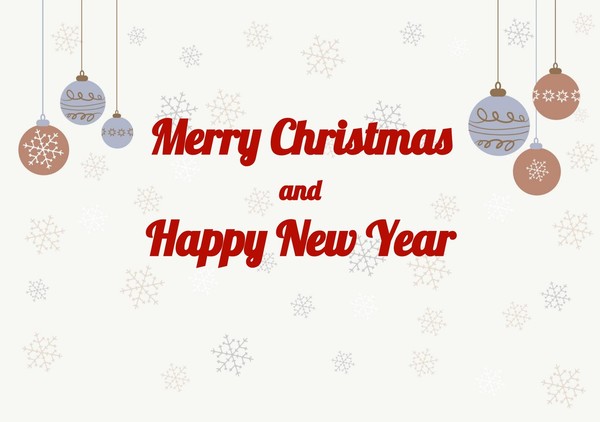
Free Christmas Card Template with Lobster Font — Google Docs Ready-to-Use Design
This ready-made Christmas card template combines elegant design and the beloved Lobster font to help users create heartfelt holiday greetings effortlessly. Designed in Google Docs, it’s fully customizable — ideal for printing or digital sharing.
Content & Design Details:
• Pre-designed Christmas card layout with editable message area.
• Features the festive, script-style Lobster font from Google Fonts.
• Includes decorative holiday elements and balanced white space.
• Sized for printing or digital sharing (standard document dimensions).
• Suitable for greeting cards, party invitations, classroom projects, and craft use.
Perfect for anyone looking to quickly produce a professional holiday card without starting from scratch.